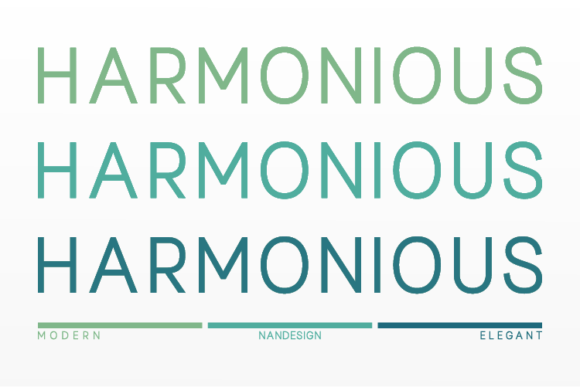
Feast your eyes on the Harmonious font, an enthralling sans serif font that stands tall and regal, ready to elevate your designs to new heights. Created by the visionary Nan Design, Harmonious bursts onto the scene as the perfect font for logotype, an art form that combines elegance and boldness, strength and grace.
With its captivating curves and striking lines, Harmonious commands attention on posters, billboards, and other large displays. Its presence is awe-inspiring, leaving an unforgettable impact on the minds of those who behold it. Whether you're a seasoned designer or just starting, Harmonious is your gateway to creating logos that resonate, leaving a lasting impression on your audience.
Take your invitations to the next level with the beauty of Harmonious. Its delicate strokes and timeless style bring a sense of sophistication to any occasion. From weddings to birthdays, anniversaries to corporate events, Harmonious effortlessly elevates the significance of your invitations, making them a cherished keepsake for years to come.
Dive into the realm of digital design and let Harmonious ignite your creativity. Craft stunning headers that dance across your website, headlines that captivate and pull readers into your online world, and social media posts that demand attention. Engage your audience, drive traffic to your site, and establish a strong online presence with the transformative power of Harmonious.
Explore the world of branding and see how Harmonious transforms your company's identity. Create logos that embody your brand's essence, expressing its values, mission, and unique personality. Harmonious weaves its magic, creating a visual identity that resonates with your target audience, building trust and leaving a lasting impression.
With Harmonious, the possibilities are endless. Its versatile charm lends itself to a myriad of design projects, from breathtaking posters to eye-catching brochures, from captivating flyers to mesmerizing social media graphics. Experience the joy of seamless design as Harmonious effortlessly adapts to your every need, bringing your vision to life with remarkable finesse.